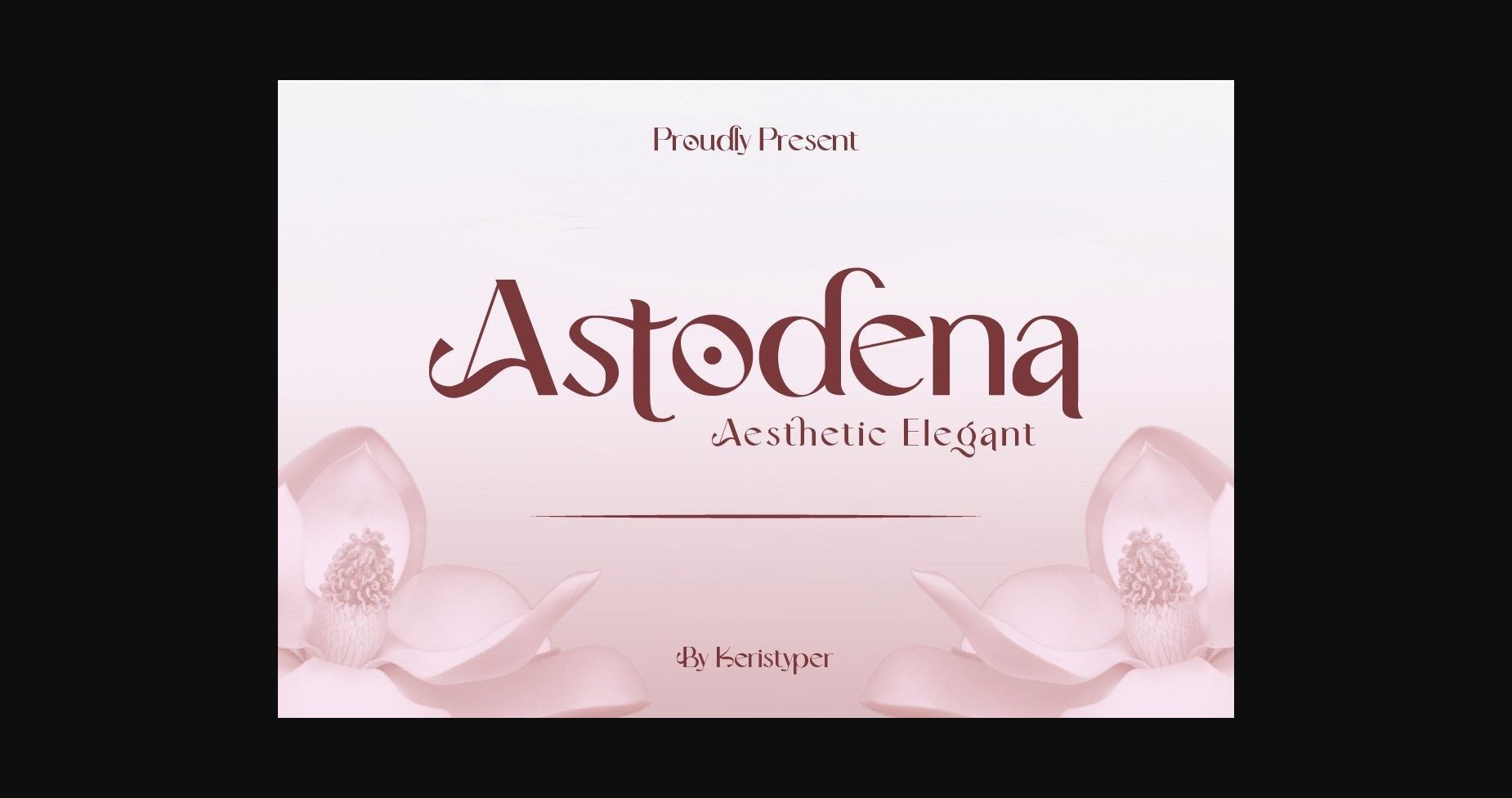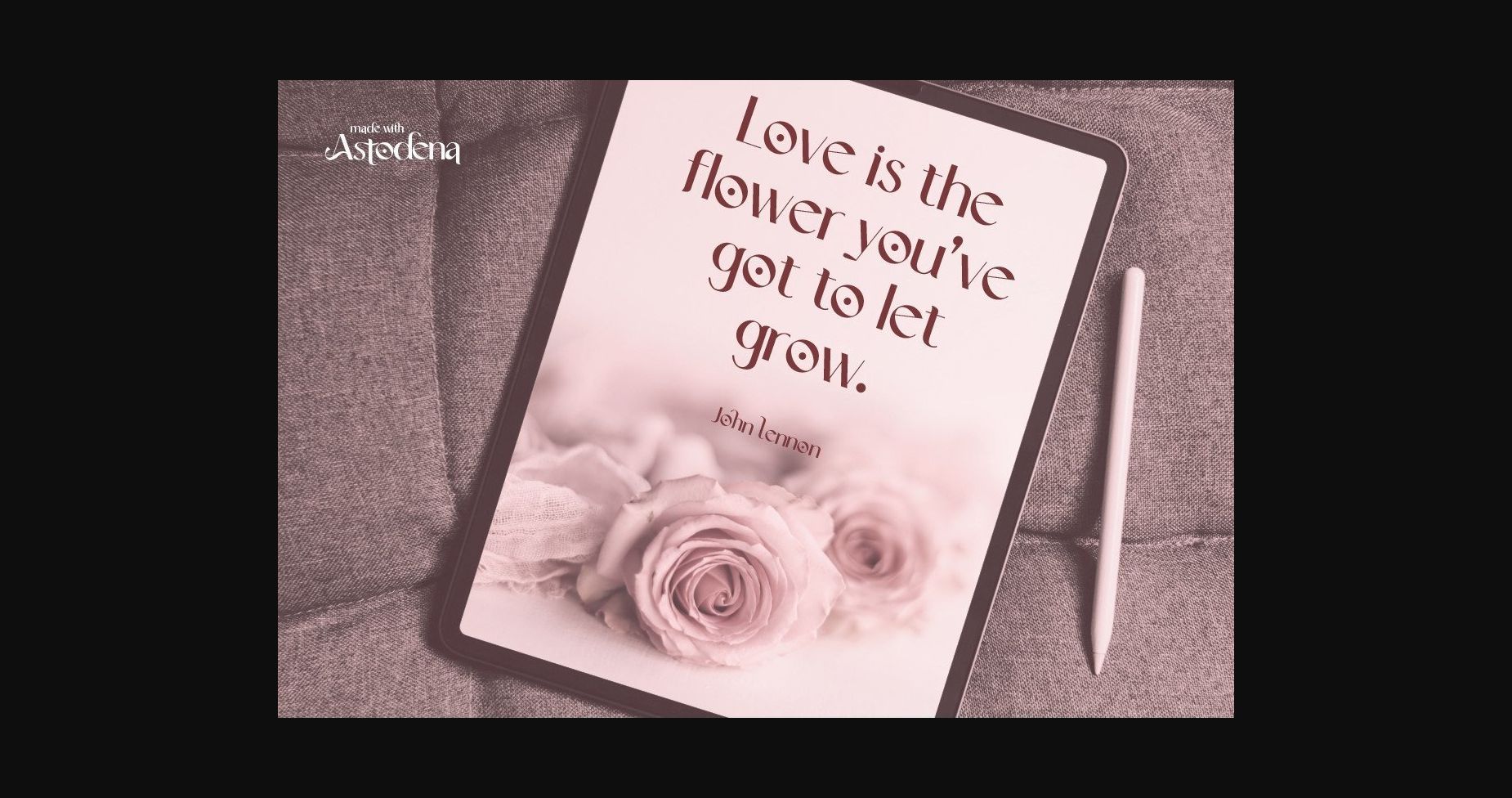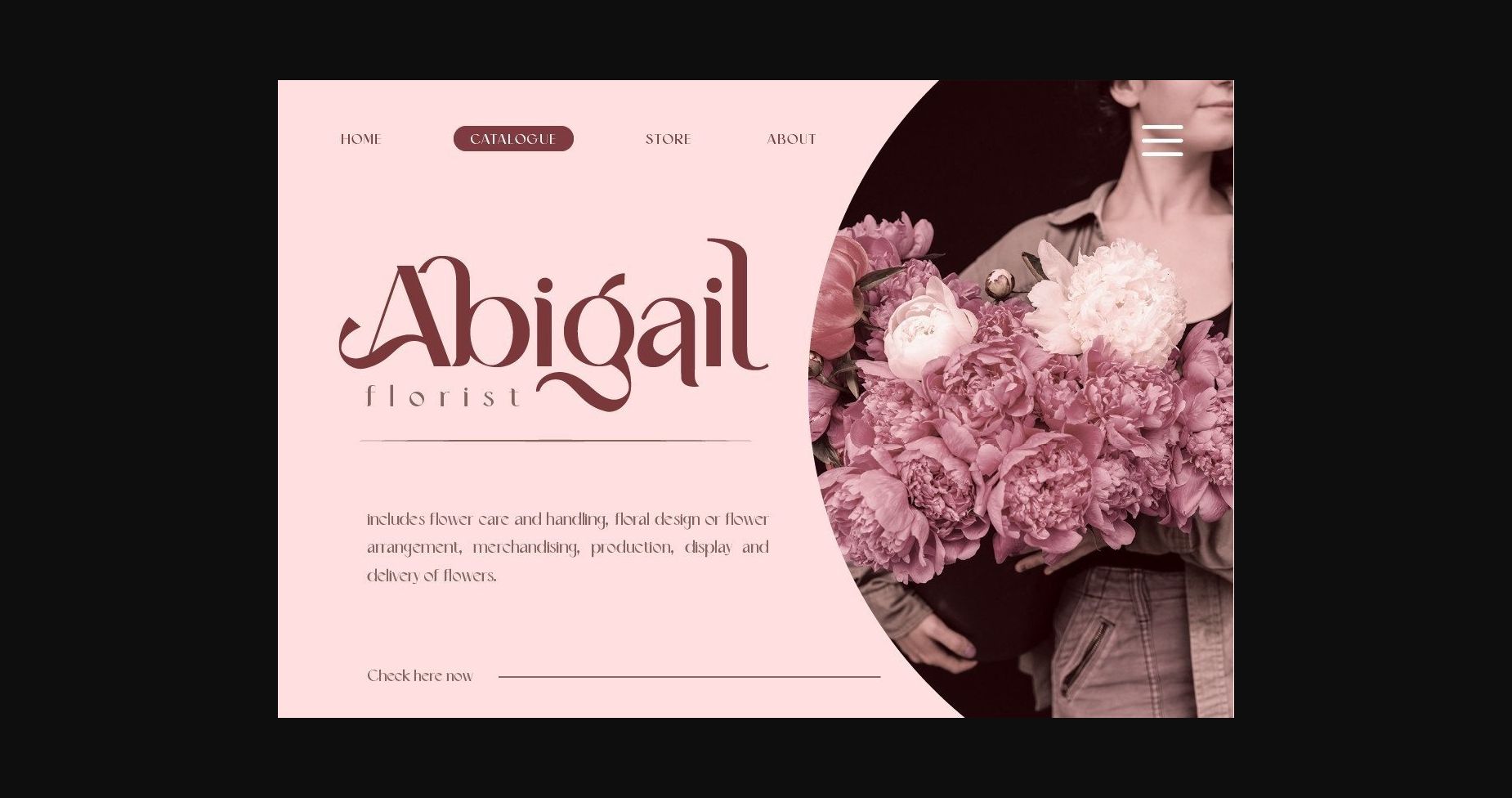
About Astodena Font
Astodena is an elegant sans serif font that looks aesthetic. This font is good for logo design, Social media, Movie Titles, Books Titles, short text even long text letters, and good for your secondary text.